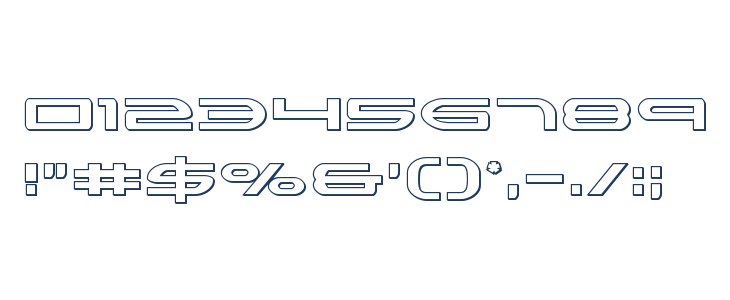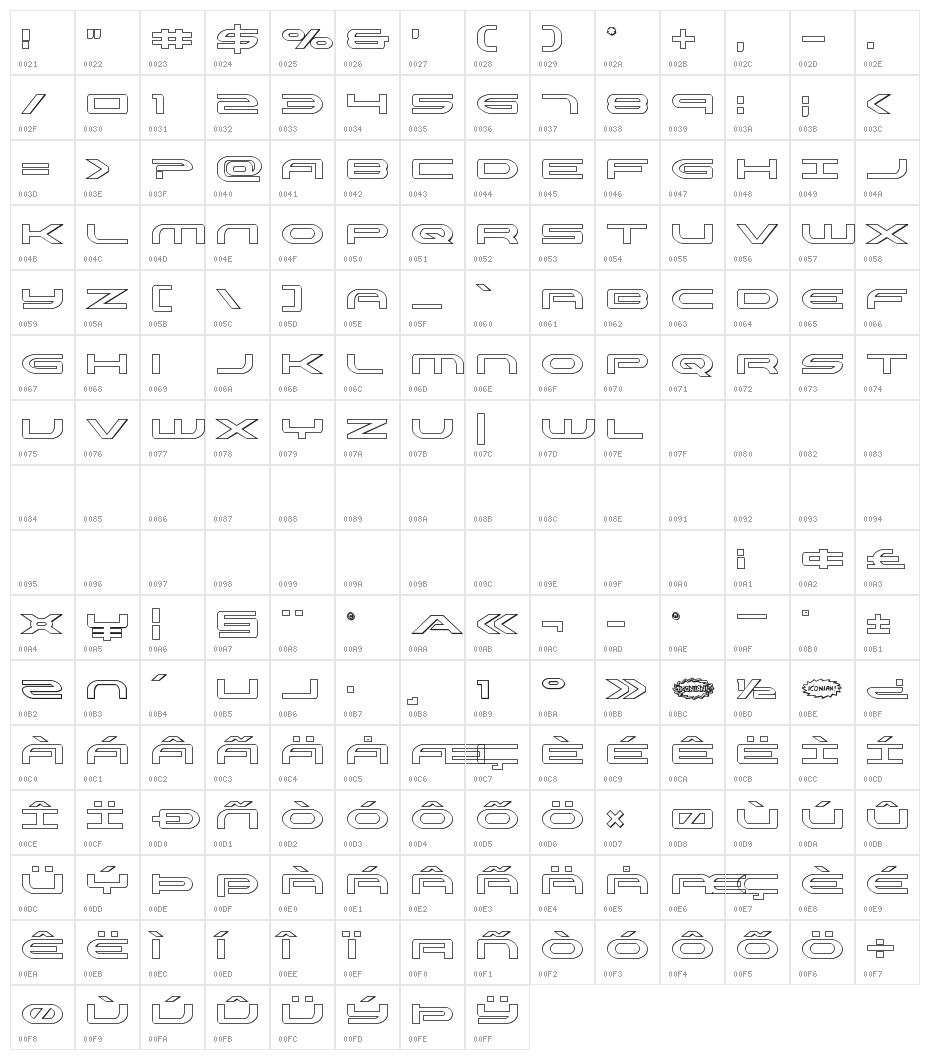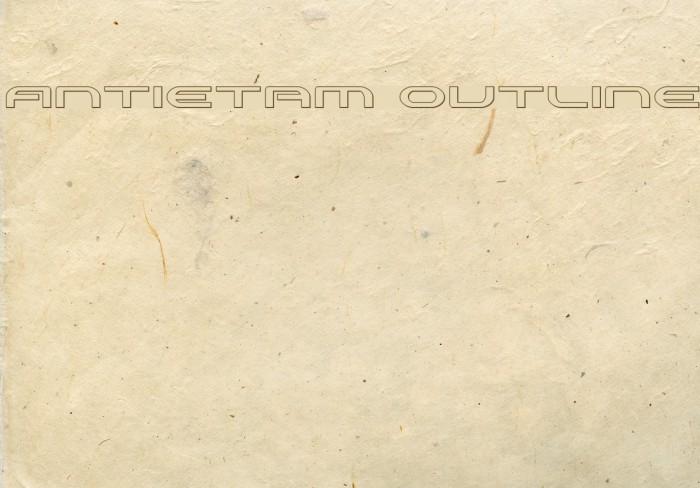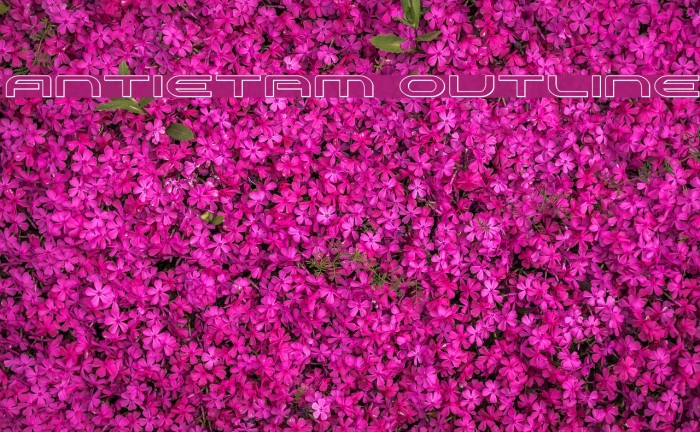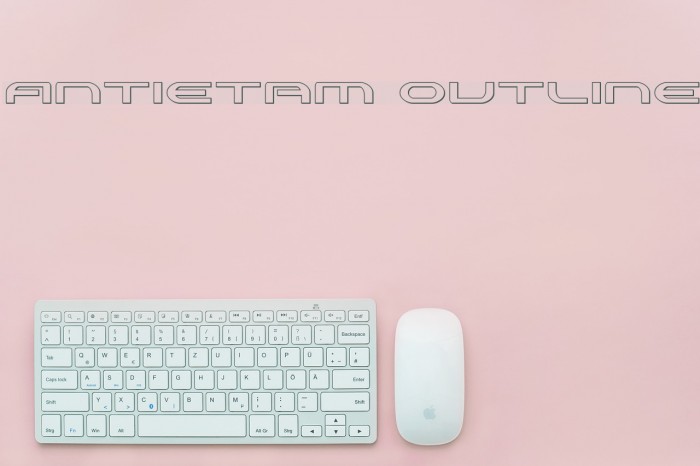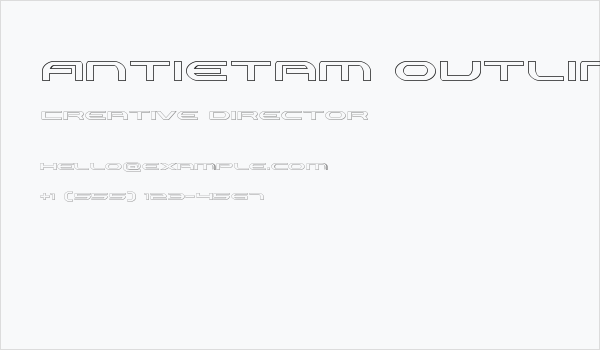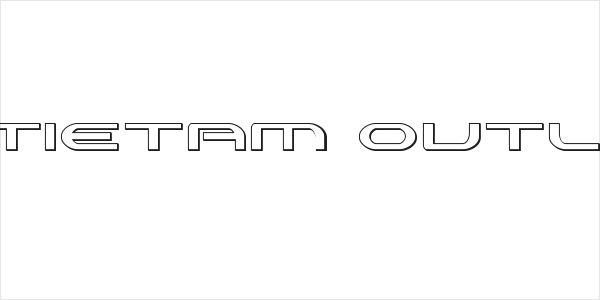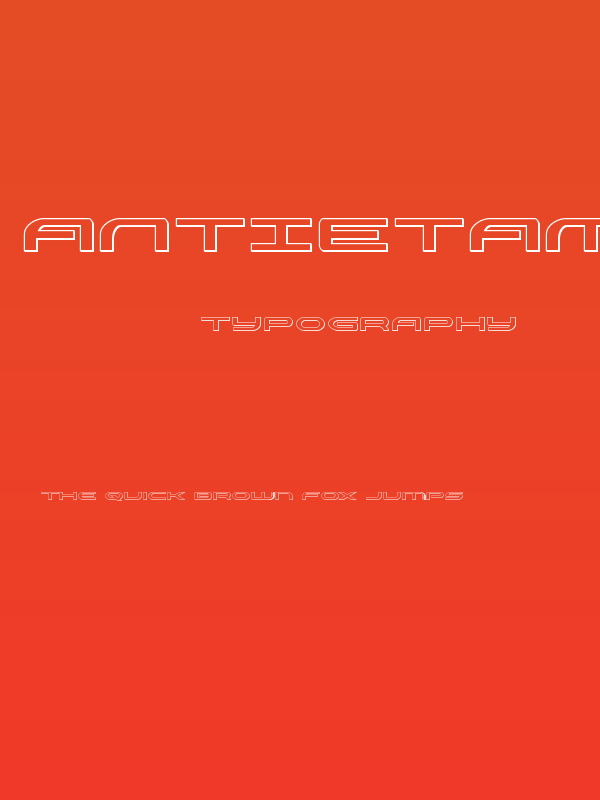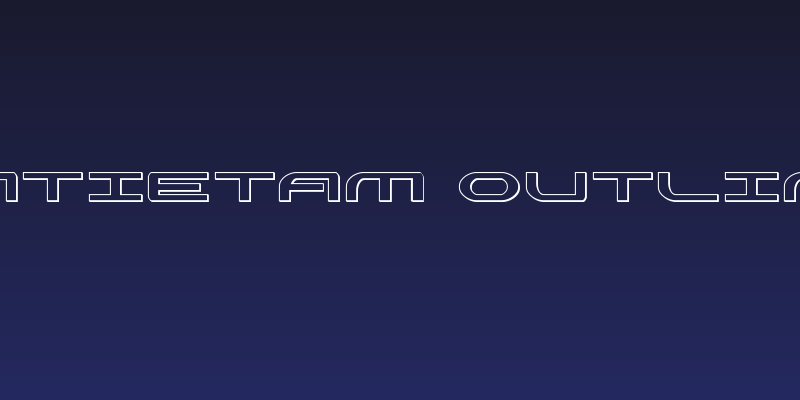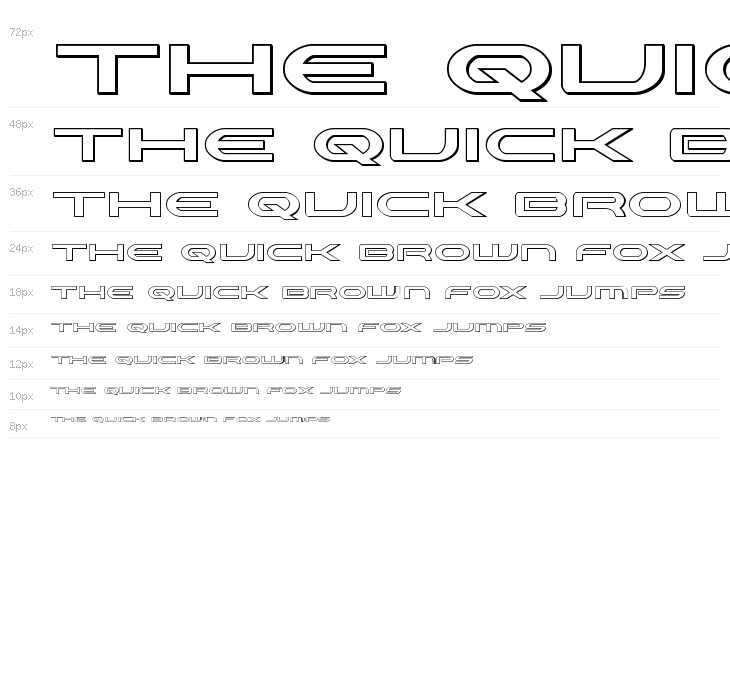
Antietam Outline Font
Antietam Outline Description
This font features a distinct outline style with a modern and geometric appearance. The characters are constructed with clean, precise lines that form an open, airy look. The uppercase and lowercase letters share a uniform height, contributing to a cohesive and structured design. The numerals and special characters maintain the same outline style, ensuring consistency across all glyphs. This font's unique outline design makes it stand out, offering a futuristic and sleek aesthetic that is both eye-catching and versatile.
| Proposed Projects | Ideal for branding, logos, posters, and digital media where a modern and distinctive look is desired. |